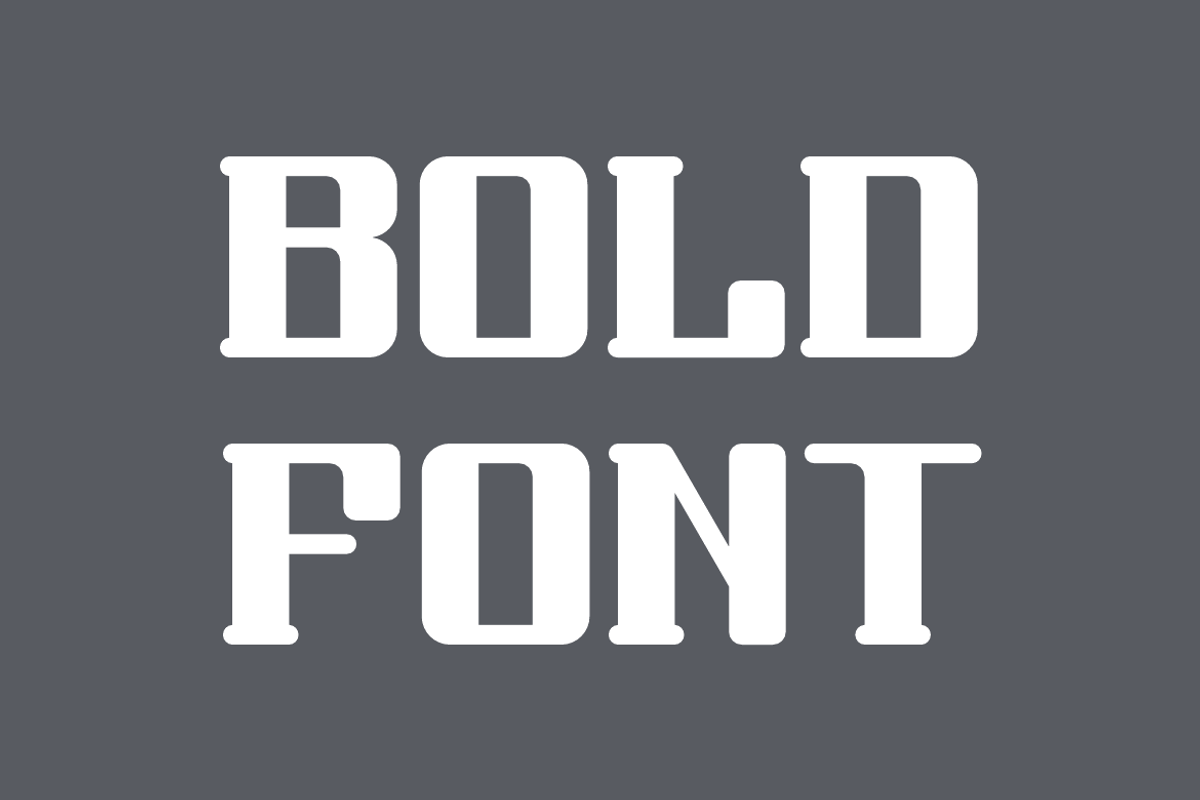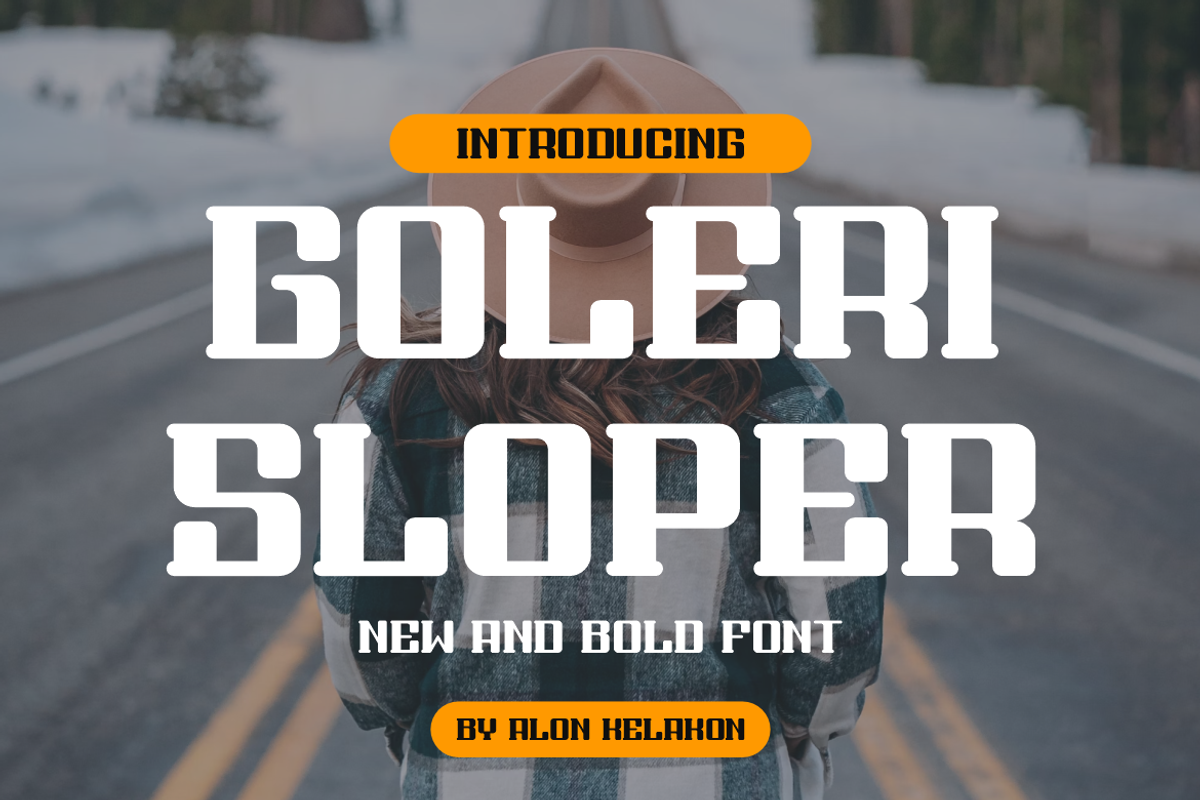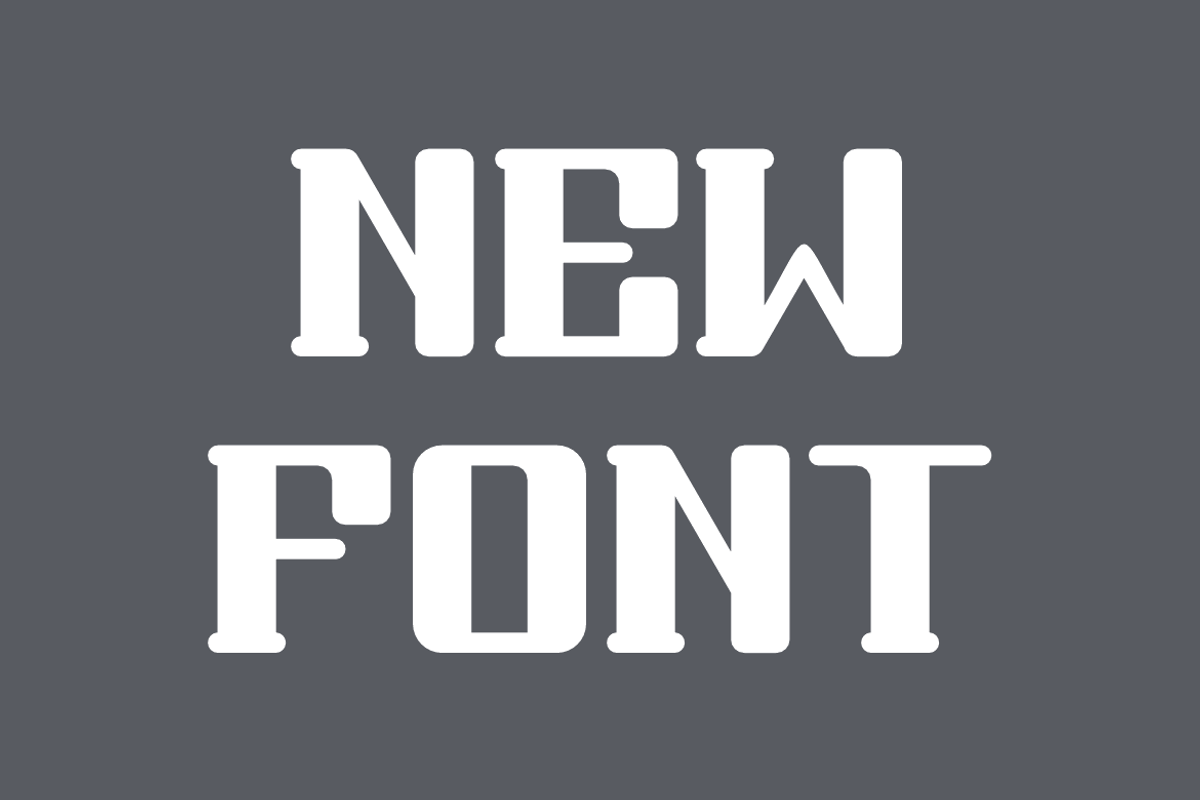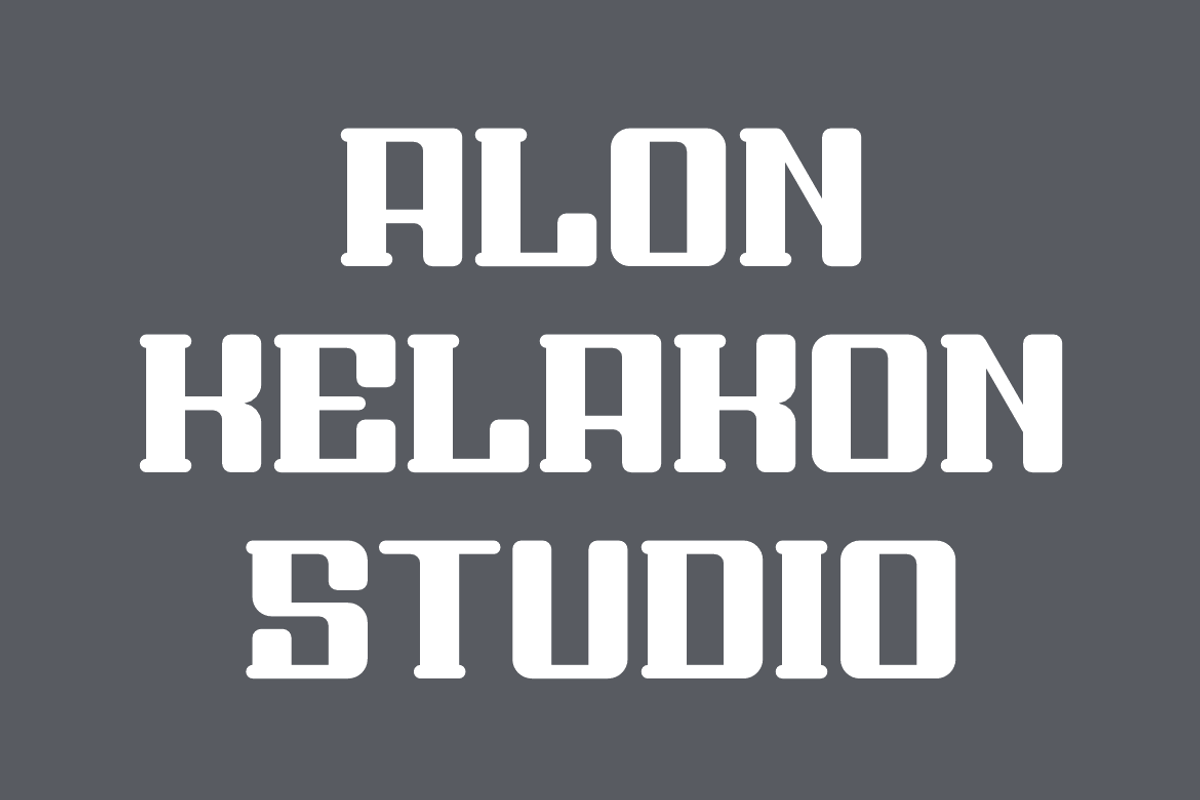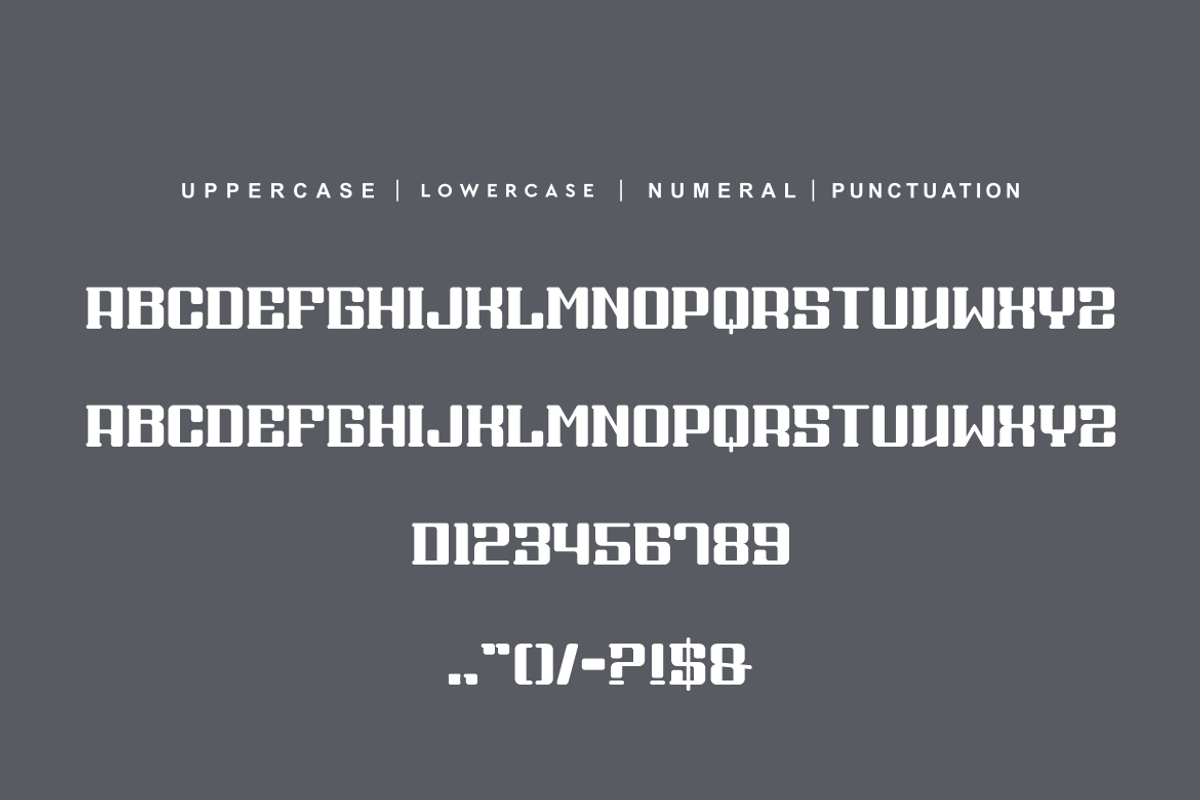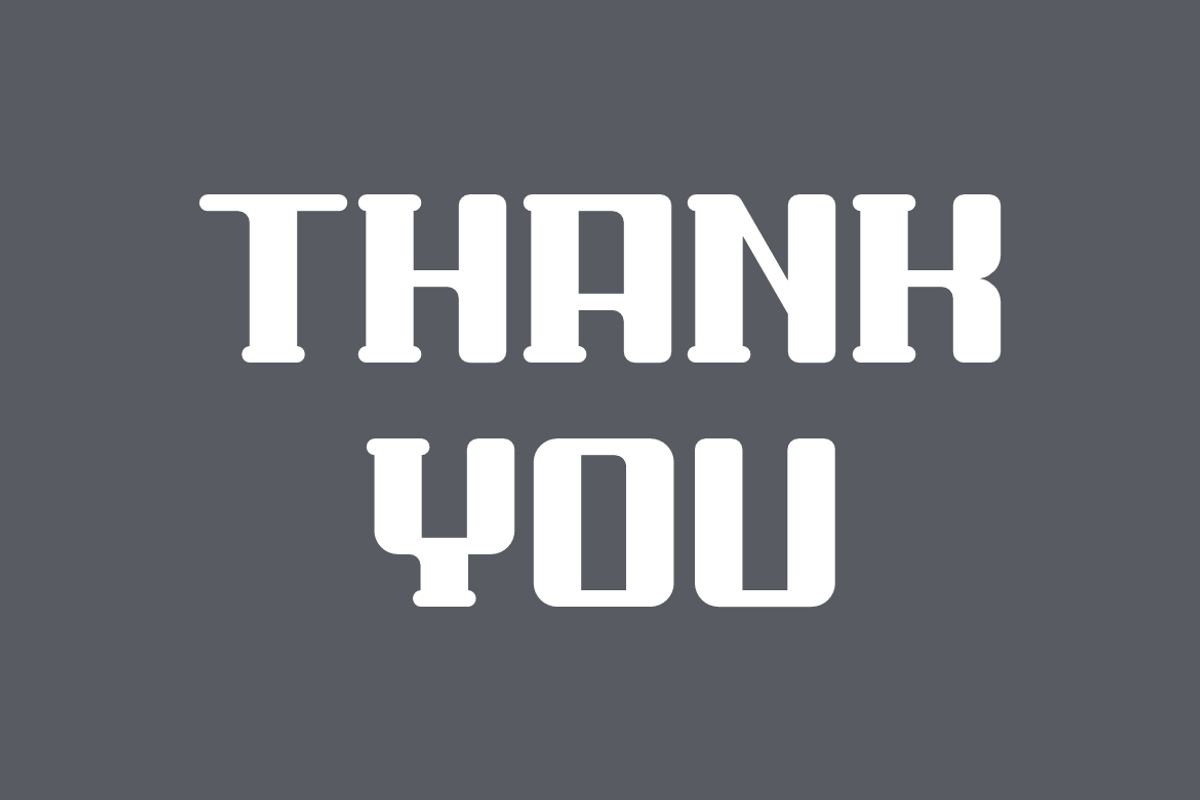
Goleri Sloper
Goleri Sloper Font is unique . Ready to use for your design like labeling, movie sceen, poster, movie title, gigs, album covers, logos, and much more.